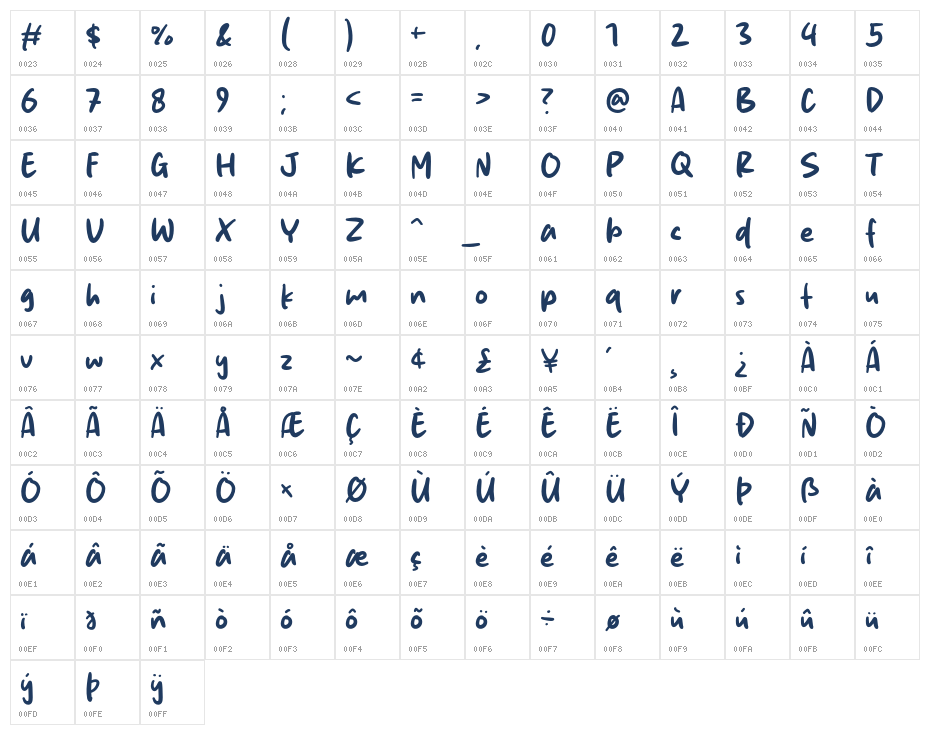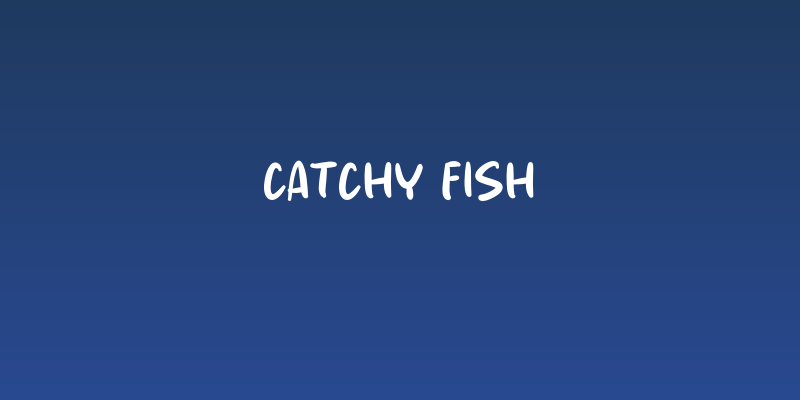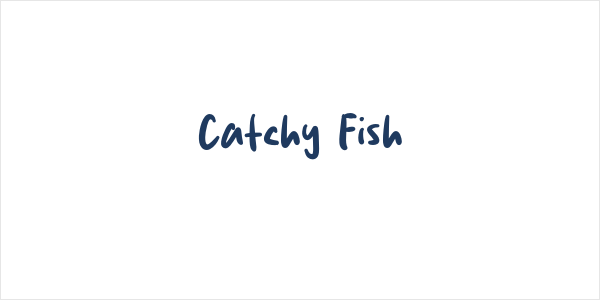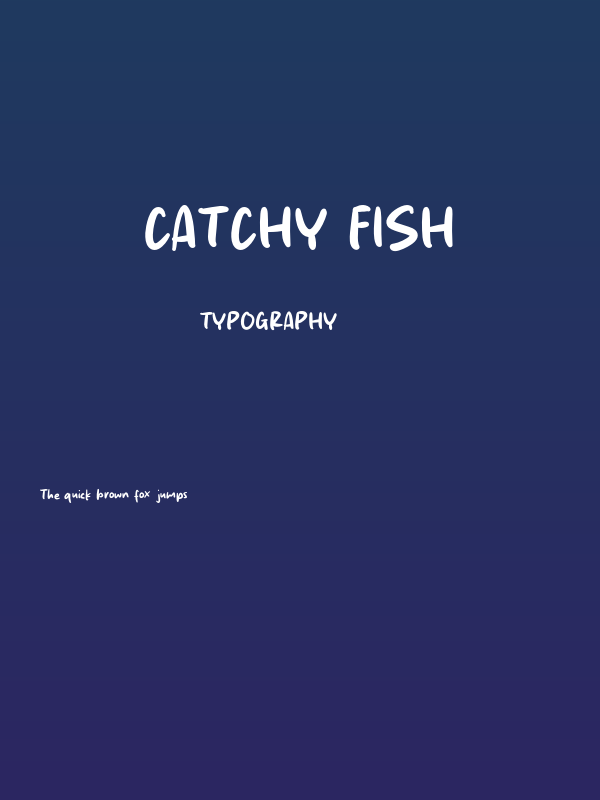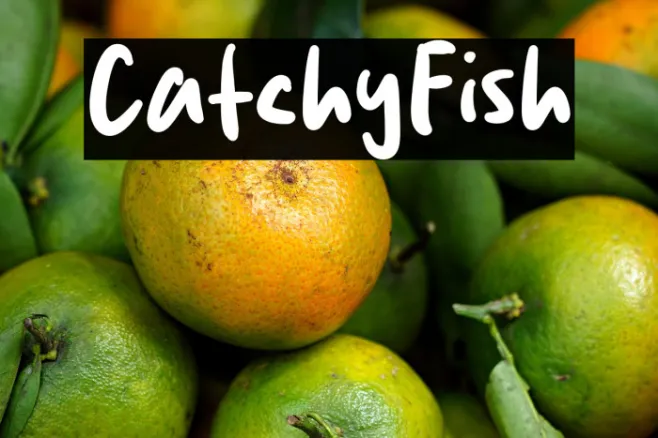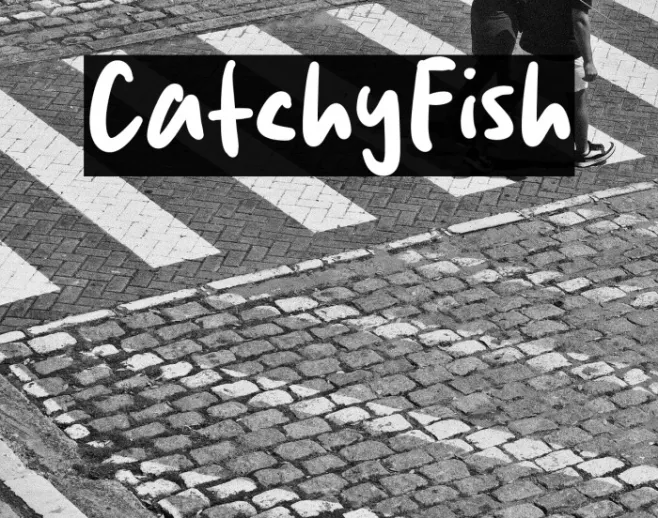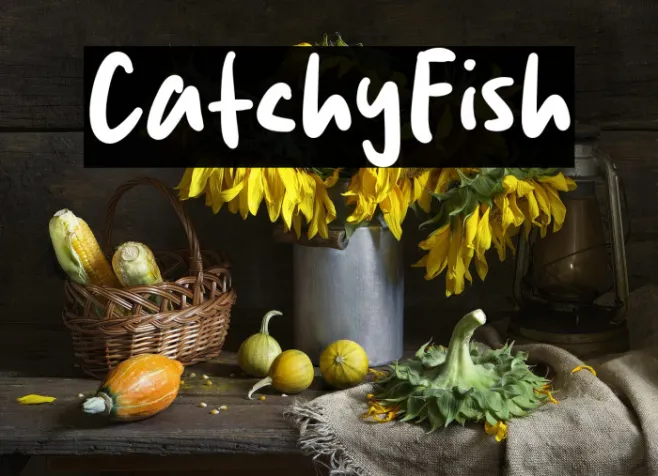
Catchy Fish Font
Catchy Fish Description
A casual, handwritten script font with a playful and friendly appearance, featuring rounded and slightly irregular characters.
| Overall Style | Casual, Friendly, Handwritten |
| Use Case | Headlines, Body text, Logos, Invitations |